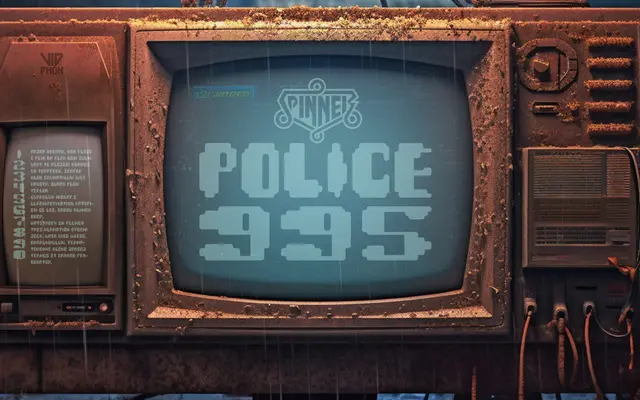
BD Spinner
A free Blade Runner tribute font built from original production logotypes and icons drawn by Tom Southwell and digitised by Büro Destruct in 2004 and 2023.
Originally drawn by Tom Southwell, production illustrator on Ridley Scott's 1982 film, the glyphs were carefully vectorised by Büro Destruct across two rounds of work in 2004 and 2023. Coverage spans Basic Latin and a set of dingbats, with an alternate numeral set available via stylistic set. Available for personal use only.
A display font derived from logotypes and icons created for the Blade Runner film production, featuring a distinctive retro-futuristic aesthetic rather than any conventional text category.